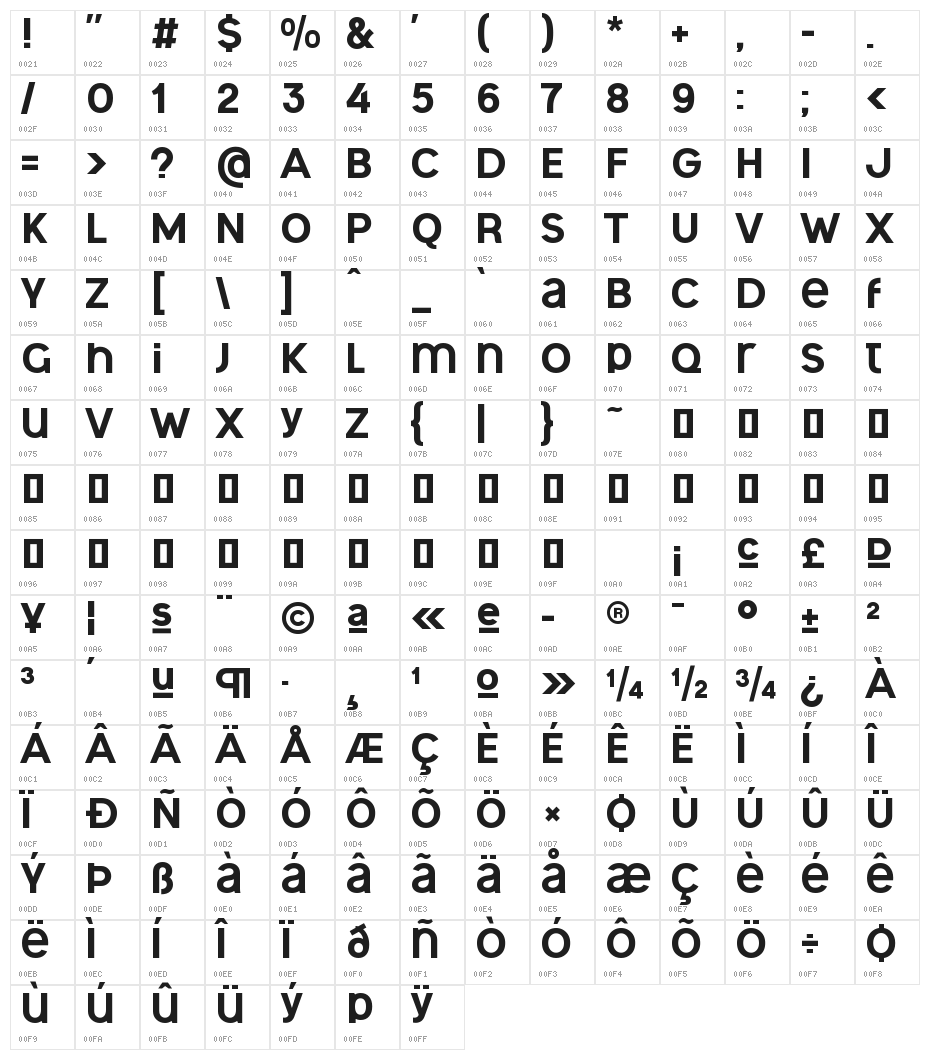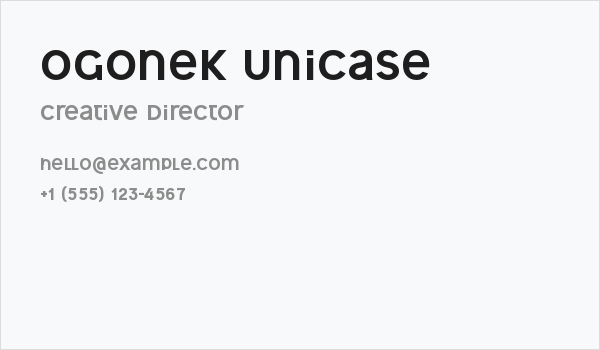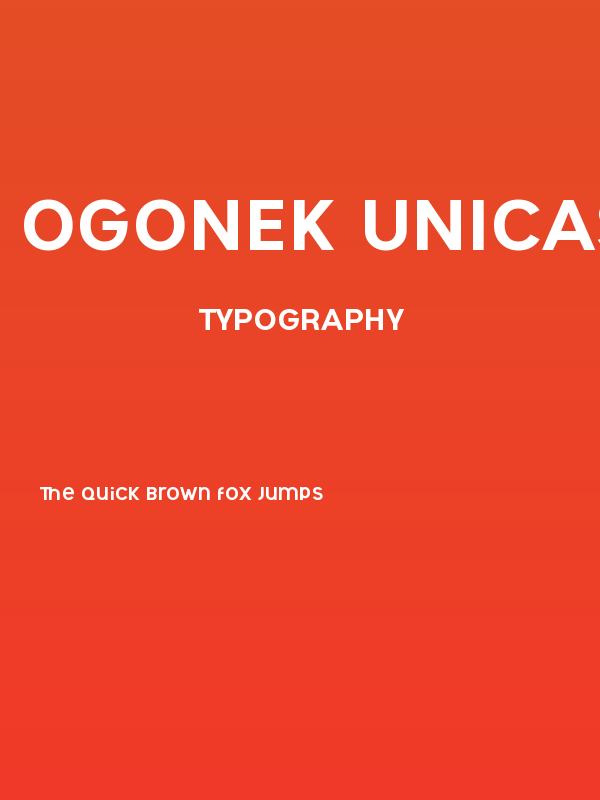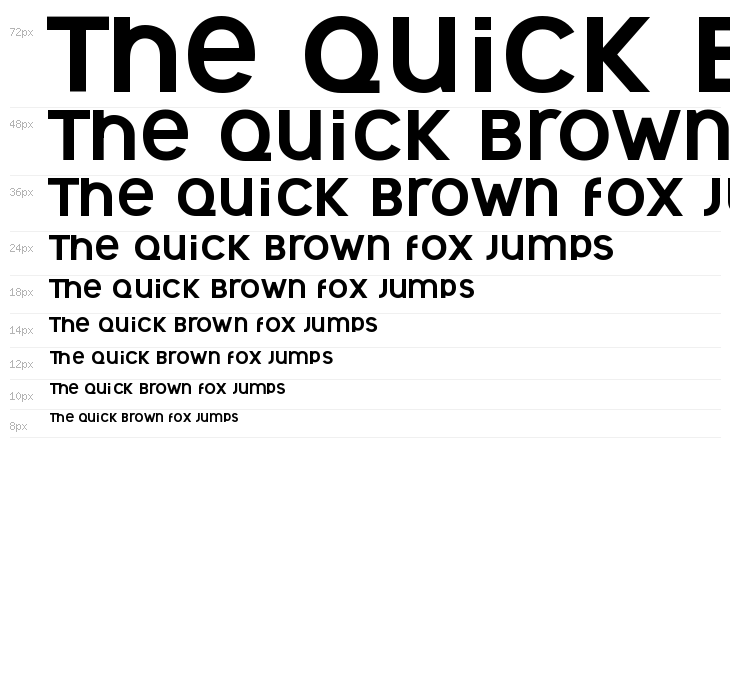
Ogonek Unicase Font
Ogonek Unicase Description
This font features a bold and modern sans-serif design with a strong geometric structure. The characters are uniform in width, providing a clean and balanced appearance. The uppercase and lowercase letters share a similar height, creating a unicase effect that is both unique and visually appealing. The numbers and special characters are designed to complement the letterforms, maintaining the overall aesthetic. The font's simplicity and clarity make it highly legible, suitable for a variety of design applications.
| Proposed Projects | Ideal for branding, headlines, posters, and digital media where a modern and bold statement is desired. |